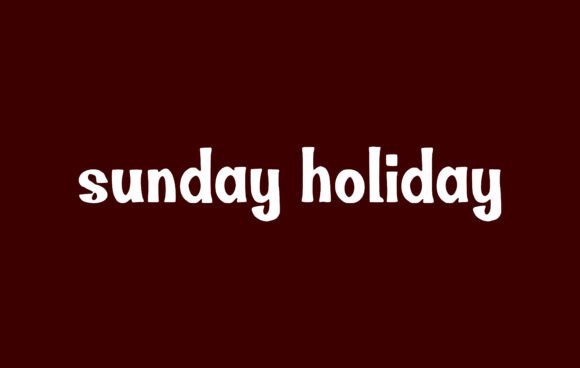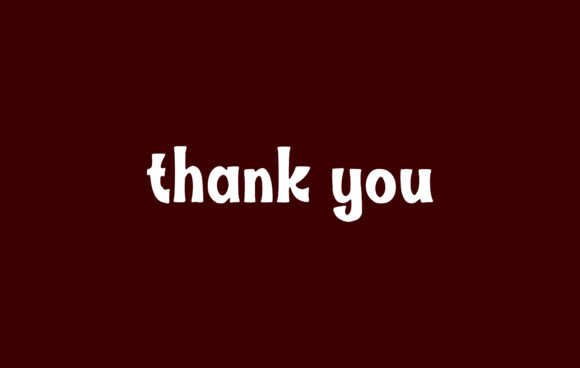
Discover the Charm of Adalee Font: Elevate Your Designs with a Romantic Touch
In the world of typography, few fonts manage to capture the essence of romance and elegance as effortlessly as Adalee Font. This authentic handwritten font has been expertly designed to bring a touch of sophistication and whimsy to any design project. Whether you’re a seasoned designer or a crafty DIY enthusiast, Adalee Font is poised to become your new favorite companion in the creative process.
The Unique Appeal of Adalee Font
Adalee Font stands out in the vast sea of digital fonts due to its unique blend of authenticity and elegance. This handwritten font is not just a collection of letters; it’s an expression of personality and style. With its romantic touch, Adalee Font can transform even the most mundane text into a visually stunning piece of art. Its design is meticulous, ensuring that each letter, word, and sentence flows smoothly, making it a joy to read and behold.
One of the key advantages of Adalee Font is its incredible versatility. This font is not limited to a specific use case; rather, it can be seamlessly integrated into a wide array of design projects. Here are a few ideas to get you started:
- Magazine Headlines: Use Adalee Font to create captivating headlines that draw readers in. Its elegant and bold appearance makes it perfect for magazine covers, article titles, and even section dividers.
- Social Media: Elevate your social media presence with eye-catching posts and stories. Adalee Font’s readability and charm can help increase engagement and make your content stand out.
- Branding: Establish a strong brand identity with Adalee Font. Its unique style can help convey your brand’s personality, whether you’re a boutique selling handmade goods or a service provider offering bespoke experiences.
- Wedding Invitations: Add a touch of romance to your wedding invitations, save-the-date cards, and other wedding stationery. Adalee Font’s elegant and whimsical feel makes it perfect for celebrating love.
- Cards and More: From greeting cards to DIY crafts, Adalee Font can add a personal touch to any project. Its legibility and aesthetic appeal make it suitable for a wide range of creative endeavors.
Why Designers and Crafters Love Adalee Font
Adalee Font has quickly become a favorite among designers and crafters for several reasons:
- Legibility: Despite its elegant and handwritten nature, Adalee Font remains highly legible, making it suitable for both title and body text.
- Customization: Adalee Font can be easily customized to fit the specific needs of your project, allowing for endless creative possibilities.
Adalee Font is more than just a collection of letters; it’s a tool for creative expression. Its romantic touch, combined with its versatility and legibility, makes it an invaluable asset for designers and crafters alike. Whether you’re looking to elevate your professional designs or add a personal touch to your DIY projects, Adalee Font is sure to exceed your expectations. Discover the charm of Adalee Font today and take your creative ideas to new heights.